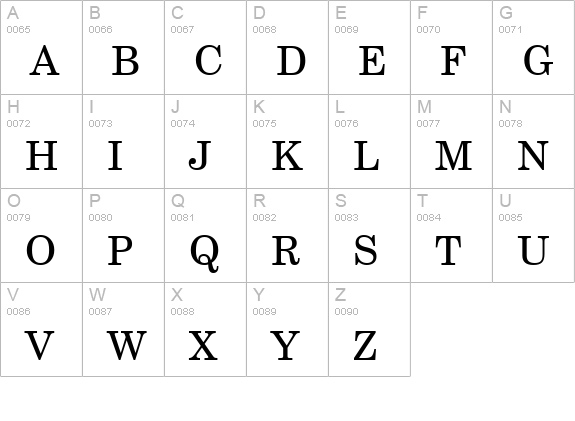
Century Schoolbook SWA Font Details
Century Schoolbook SWA is a classic and elegant serif font that exudes sophistication and timeless charm. With its graceful curves and clean lines, this font is perfect for creating professional documents, invitations, and printed materials that demand a touch of refinement. What sets Century Schoolbook SWA apart is not just its beauty, but also the fact that it is available for free download at FontsMarket.com. This means that you can easily access and use this exquisite font for all your design projects without any cost involved. Whether you're a student working on a school project or a designer looking to add a touch of class to your work, Century Schoolbook SWA is the perfect choice. Download Century Schoolbook SWA today from FontsMarket.com and elevate your designs with this stunning and versatile font that is sure to make a lasting impression.